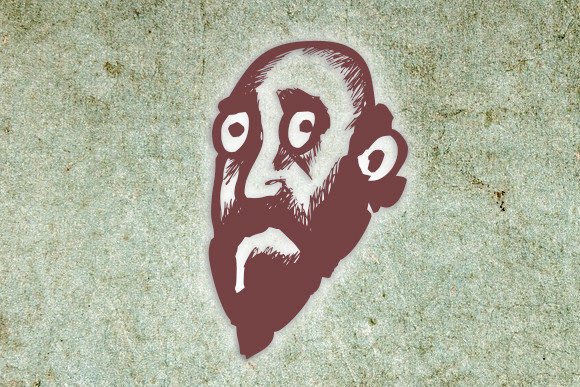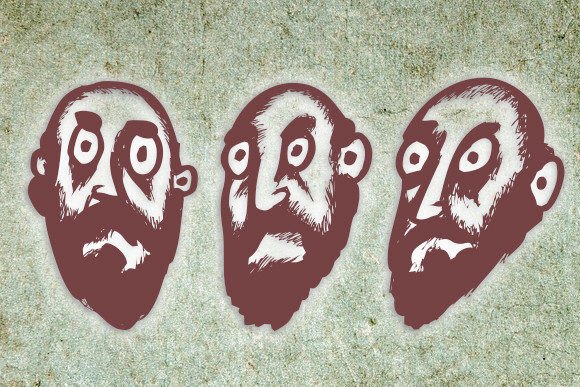
Introducing Beard Man Font: The Ultimate Dingbats Font for Creative Designs
Are you a designer or crafter looking for a unique and creative typeface to elevate your designs? Look no further than Beard Man Font! This awesome dingbats font is perfect for adding a touch of personality to your posters, t-shirts, prints, and more. In this article, we’ll dive into the features and benefits of Beard Man Font, and explore how you can use it to take your designs to the next level.
What is Beard Man Font?
Beard Man Font is a dingbats font that features a collection of creative and quirky illustrations of bearded men. Each character in the font is carefully designed to be unique and visually appealing, making it perfect for adding a touch of whimsy to your designs. The font is highly versatile and can be used for a wide range of projects, from posters and flyers to t-shirts and prints.
Key Features of Beard Man Font
- Unique and Creative Designs: Each character in Beard Man Font is carefully designed to be visually appealing and unique, making it perfect for adding a touch of personality to your designs.
- Highly Versatile: Beard Man Font can be used for a wide range of projects, from posters and flyers to t-shirts and prints.
How to Use Beard Man Font in Your Designs
Using Beard Man Font in your designs is easy! Here are a few ideas to get you started:
- Posters and Flyers: Use Beard Man Font to create eye-catching posters and flyers for events, promotions, and more.
- T-Shirts and Apparel: Add a touch of personality to your t-shirts and apparel with Beard Man Font.
- Prints and Artwork: Use Beard Man Font to create unique and visually appealing prints and artwork.
Benefits of Using Beard Man Font
There are many benefits to using Beard Man Font in your designs. Here are a few:
- Adds Personality to Your Designs: Beard Man Font adds a touch of personality and whimsy to your designs, making them stand out from the crowd.
- Increases Engagement: The unique and creative designs of Beard Man Font can help increase engagement and interest in your designs.
- Versatile and Flexible: Beard Man Font can be used for a wide range of projects, making it a versatile and flexible design solution.
Tips and Tricks for Getting the Most Out of Beard Man Font
Here are a few tips and tricks for getting the most out of Beard Man Font:
- Experiment with Different Colors and Textures: Experiment with different colors and textures to add depth and interest to your designs.
- Combine with Other Fonts: Combine Beard Man Font with other fonts to create unique and visually appealing typography.
- Use for Branding and Marketing Materials: Use Beard Man Font for branding and marketing materials, such as business cards, brochures, and social media graphics.